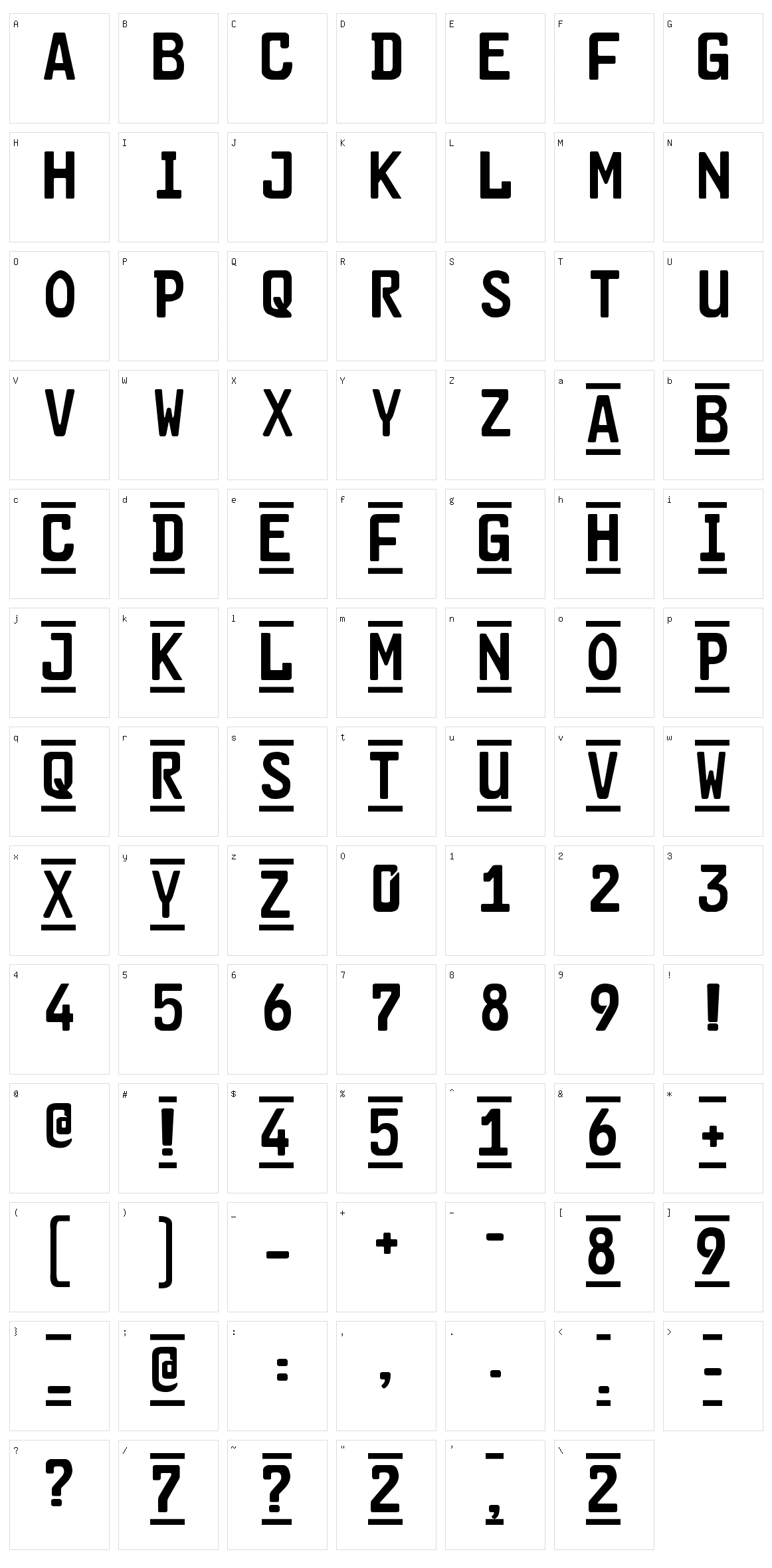
Hi, here's a short guide how to use the font.
To generate the number plate-effect, use the following glyphs:
( start number plate
) end of number plate
µ space
all letters are spelled in lower case
° 0 (zero)
^ 1
\ 2
§ 3
$ 4
% 5
& 6
/ 7
[ 8
] 9
. <
- >
_ }
+ *
? ~
! #
@ ;
, ³
: ²